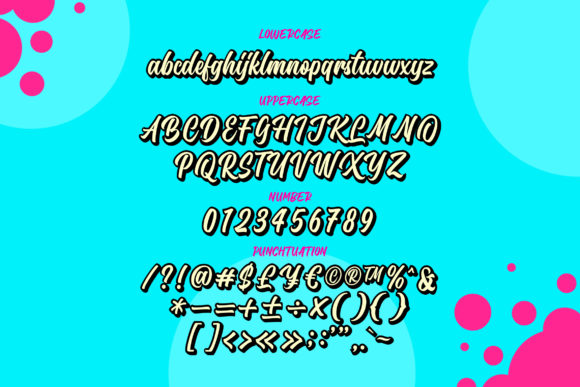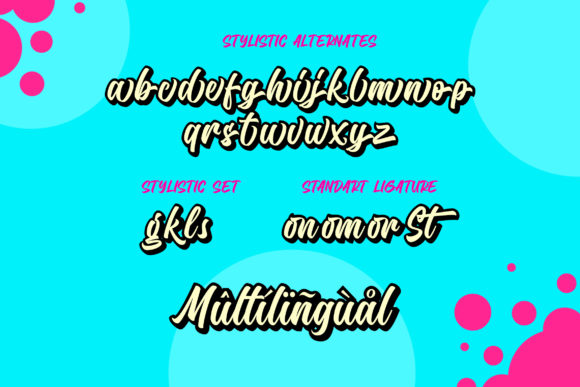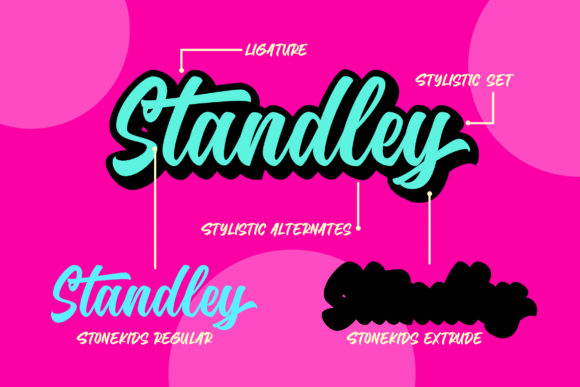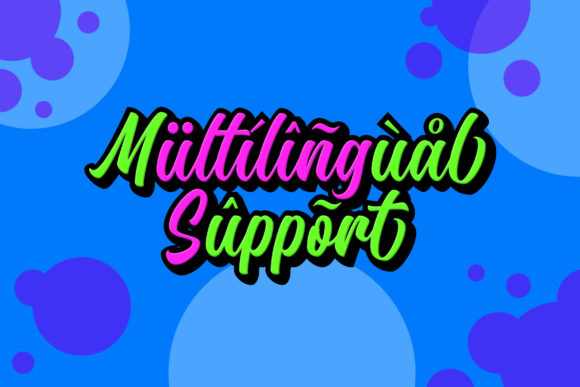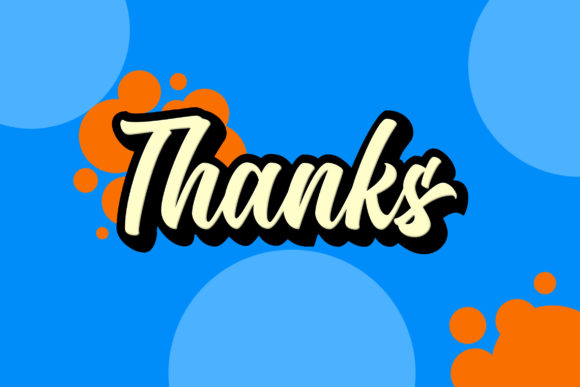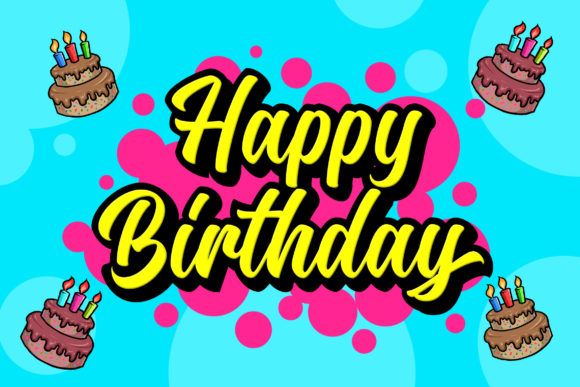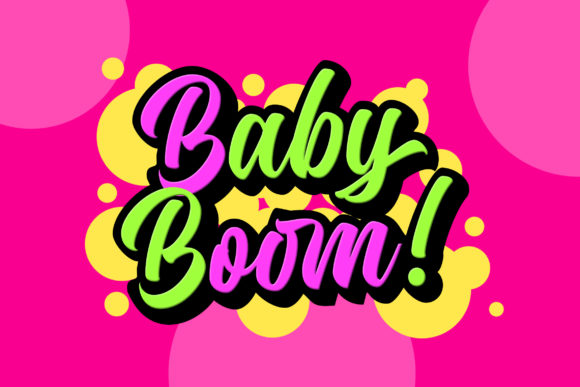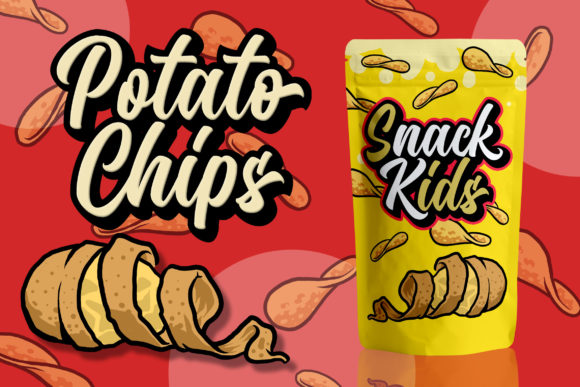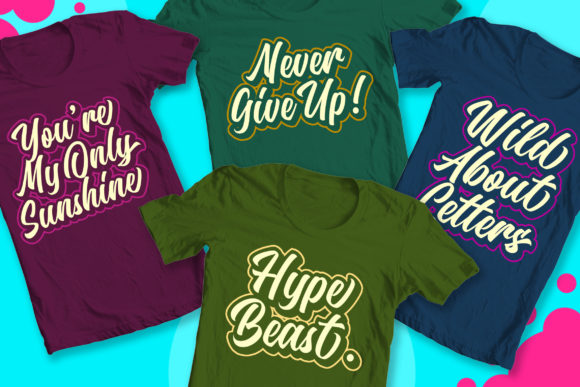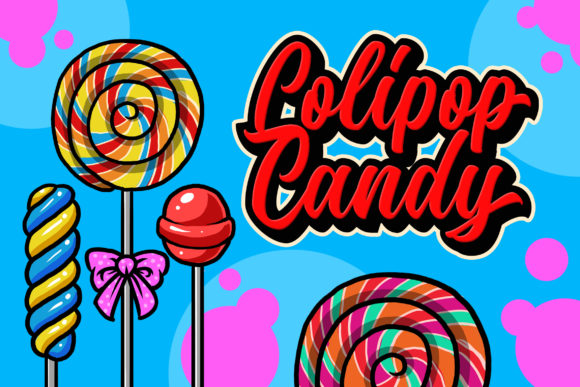
HomeScript FontsStonekids Font Script Fonts Stonekids Font FacebookXPinterestWhatsApp Stonekids Font Poster 2 Stonekids Font Poster 3 Stonekids Font Poster 4 Stonekids Font Poster 5 Stonekids Font Poster 6 Stonekids Font Poster 7 Stonekids Font Poster 8 Stonekids Font Poster 9 Stonekids Font Poster 10 Stonekids Font Poster 11 Stonekids Font Poster 12 Stonekids Font Poster 13 Stonekids Font Poster 14 About Stonekids Font Stonekids is a fun and playful handwritten font with a bold feel. Fall in love with its iconic characters! DOWNLOAD ON CREATIVE FABRICAThis font is sold and delivered by Creative Fabrica. Font Canyon may earn a commission if you buy through this link. People also explored Starlight Font Cookies Day Font Loyalty Font Billowing Script Font Brainpower Font Rosterny Font Brightos Font Kitchen Story Font Jolahope Font 357 0 TagsStonekids Font Previous articleSkinny Sharpie FontNext articleMagelove Font LEAVE A REPLY Cancel reply Comment: Please enter your comment! Name:* Please enter your name here Email:* You have entered an incorrect email address! Please enter your email address here Website: Save my name, email, and website in this browser for the next time I comment. Personal Use Free Vinograd Personal Use Free Read more about this font Baby Love Personal Use Free Read more about this font Gupis Personal Use Free Read more about this font Deling Personal Use Free Read more about this font BLOG Using Fonts in Digital Marketing: Tips to Strengthen Your Brand Identity In the realm of digital marketing, every visual element plays a crucial role in shaping a brand's identity, and fonts are no exception. The... The 10 Best Handwriting Fonts to Add Personality to Your Designs Free Fonts Risk: Why Free Fonts Can Be Dangerous for Designers Fonts That Capture the Spirit of New York City